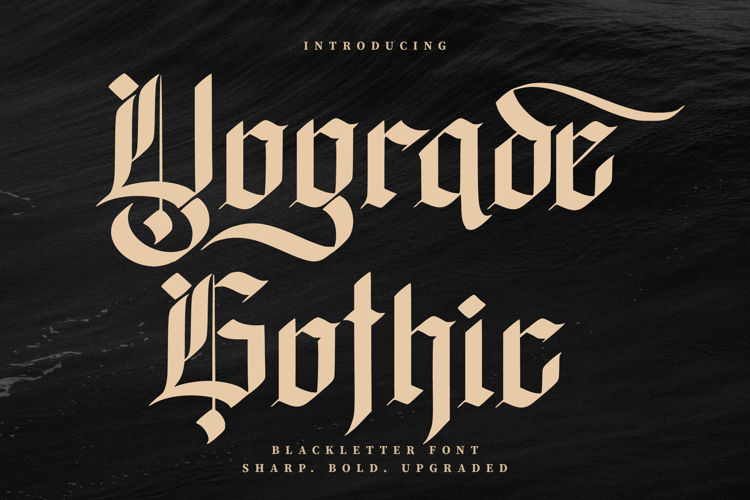
Yograde Gothic is a meticulously crafted blackletter font that strikes a perfect balance between traditional gothic calligraphy and sharp, modern geometric precision. Designed for impact, this typeface brings a bold, aggressive, yet sophisticated aesthetic to any design project.
The font features razor-sharp terminals and high-contrast strokes, making it an ideal choice for branding that requires a strong visual identity. Whether you are working on a streetwear brand, a music poster, or luxury packaging, Yograde Gothic delivers a premium “upgraded” feel to your typography.